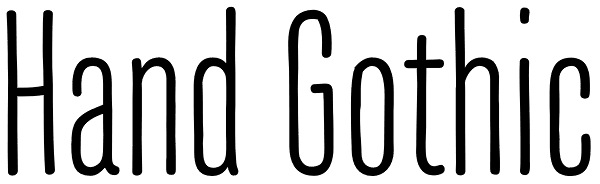
Hand Gothic
Hand Gothic is a condensed typeface with a hand-lettering feeling, available in two weights. The fonts, provided in OpenType format, include support for most European languages and some OpenType extras : ligatures, alternate “A” and “g...
Hand Gothic Bold